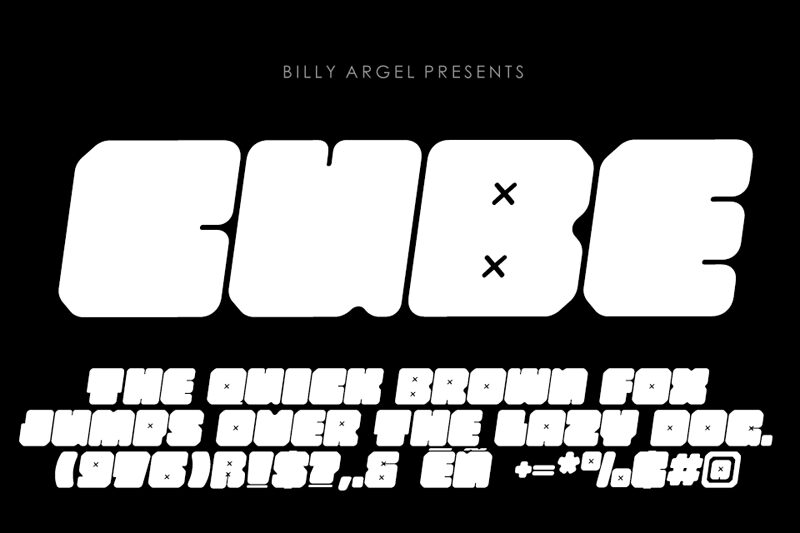
CUBE TYPE PERSONAL USE Black
Cubes type black is part of the free Cube Type fonts created and shared by Billy Argel. It is a bold, display font with a techno style created for high-impact titles and logos. Cube type black has a modern, futuristic design and could be used for website headers, game or app titles, flyers, posters, branding and logo designs.